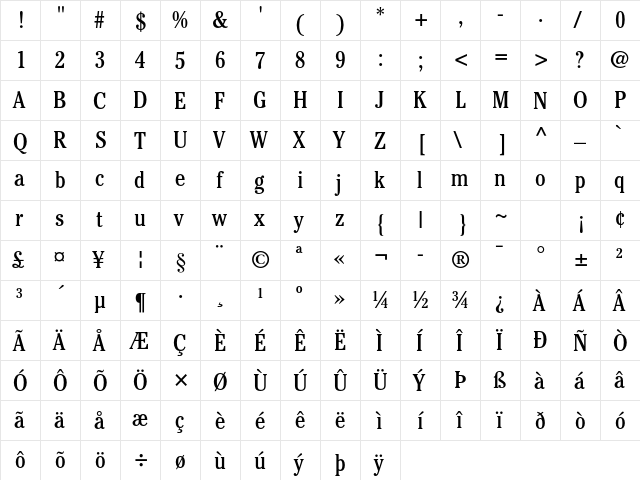
ITC Cheltenham Std Book Condensed
| Designer | Tony Stan |
Design Context for ITC Cheltenham Std Typeface
ITC Cheltenham Std takes a measured approach to typography — its balanced proportions and neutral character make it a reliable workhorse for both digital and print work. The condensed width makes it efficient for tight spaces without sacrificing legibility.